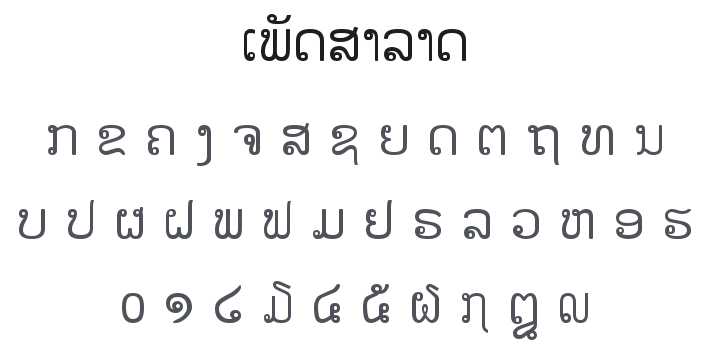
Phetsarath Font Family
by Danh Hong
About Phetsarath
Phetsarath is a font for the Lao language, used in the Lao People's Democratic Republic. It was commissioned by the Ministry of Posts and Telecommunications of the national government.